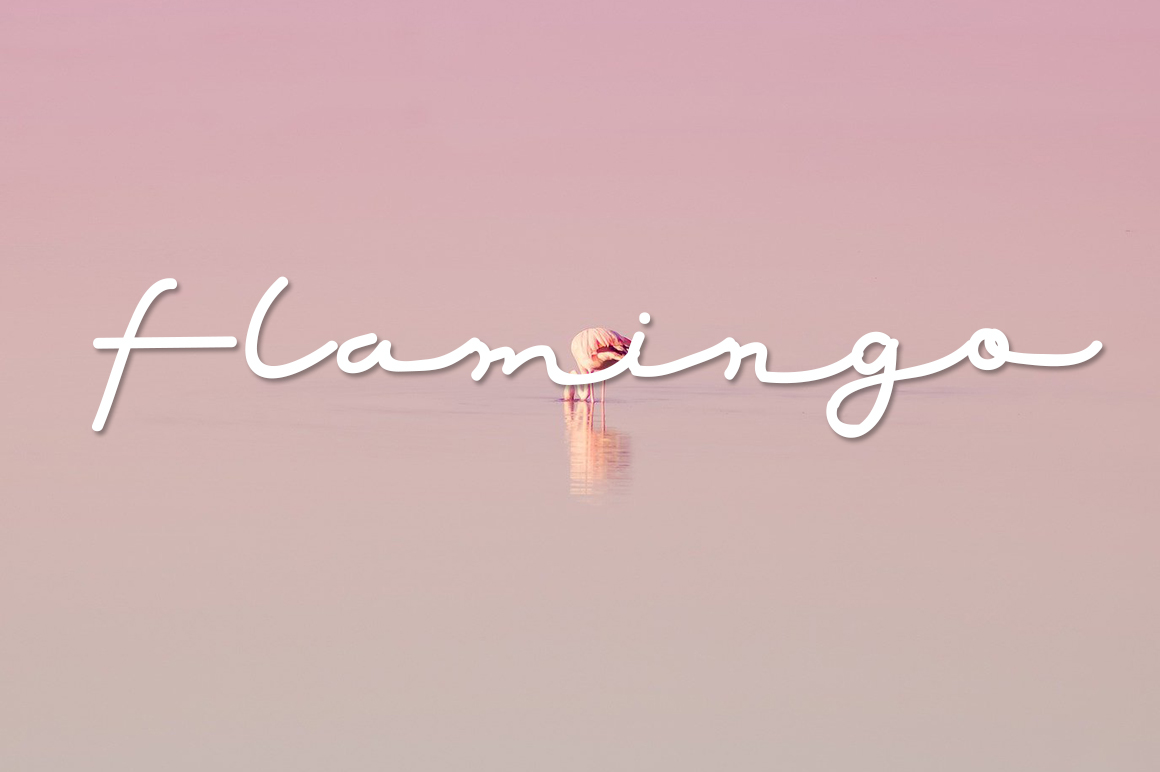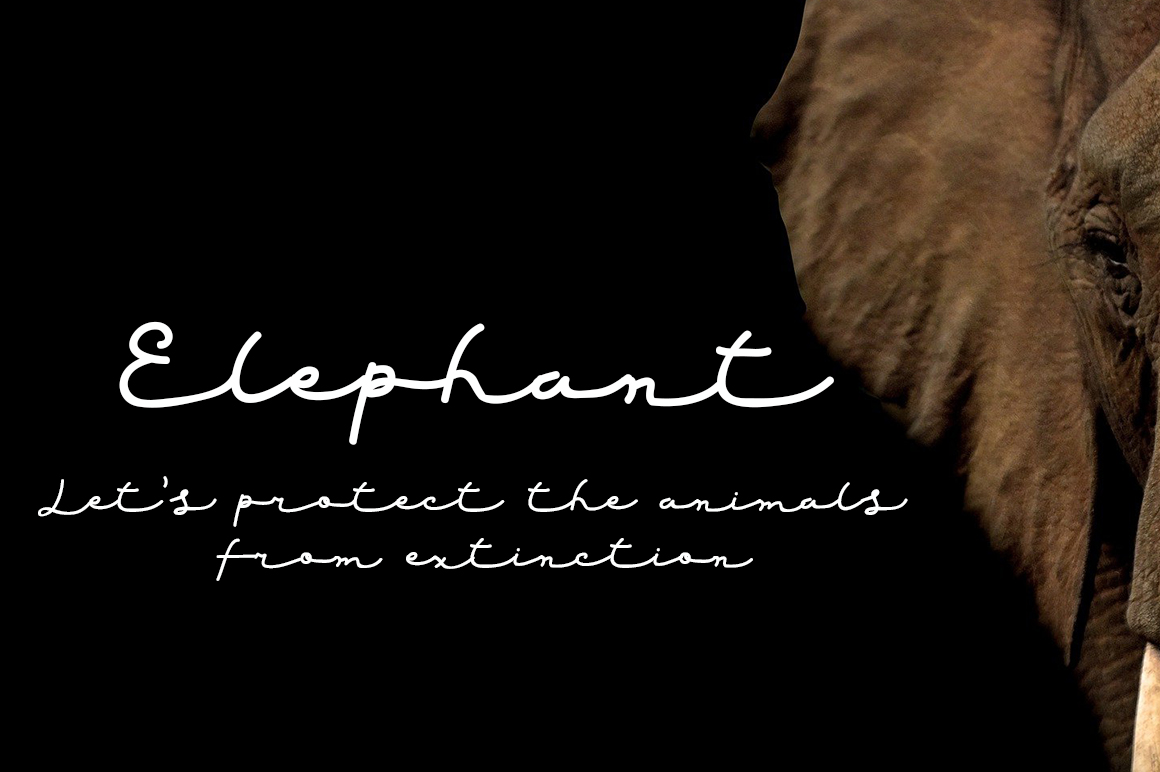
Red Grape Handwritten Font
It’s a beautiful and refined script font. It has a classy, elegant and modern look that can be used for logos, branding, invitations, stationery, wedding designs, social media posts, and much more!